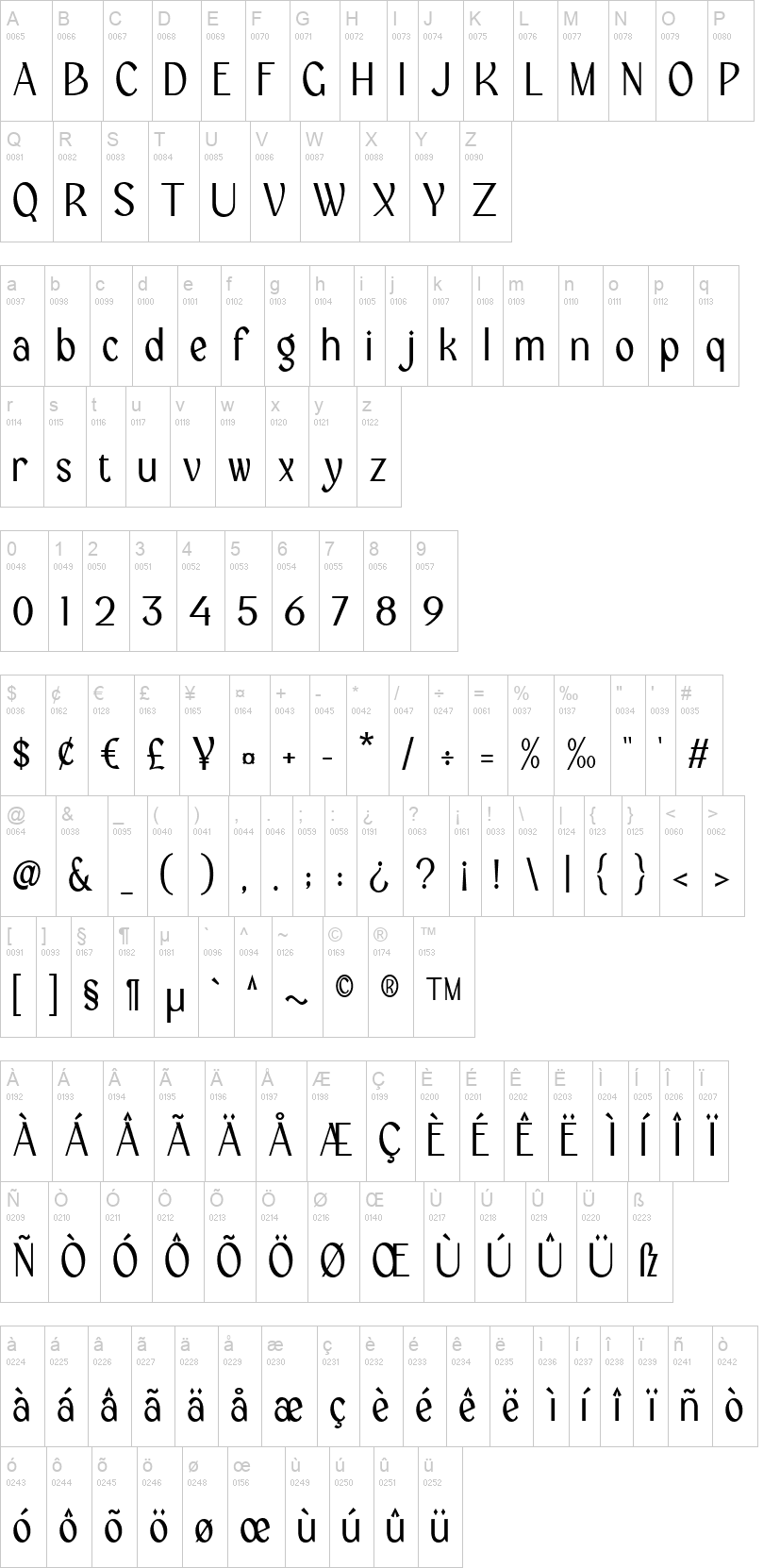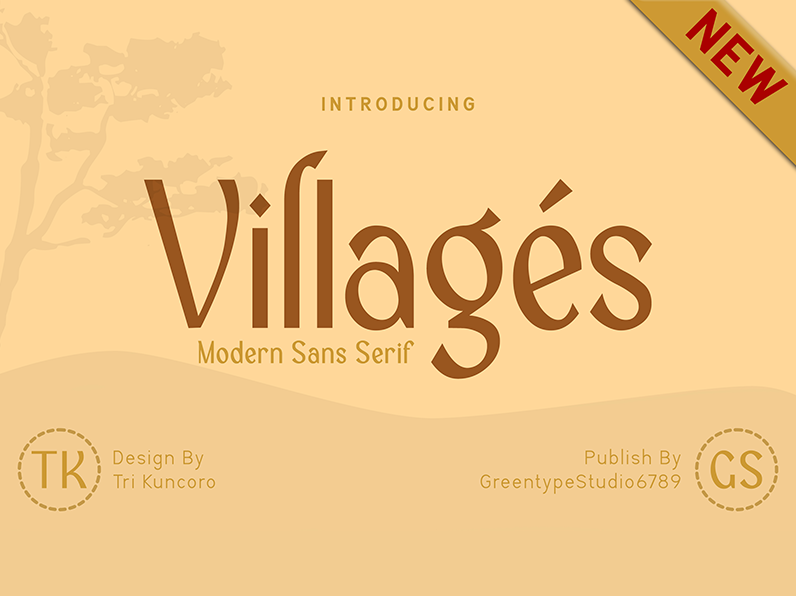
Villages.ttfVillages medium.ttfNote of the authorVillages is a combination of serif and sans serif that produces a sans serif font with an elegant and modern look, comes in 3 weights with an italic style for each weight, and several alternative characters that you can use to suit your design needs.